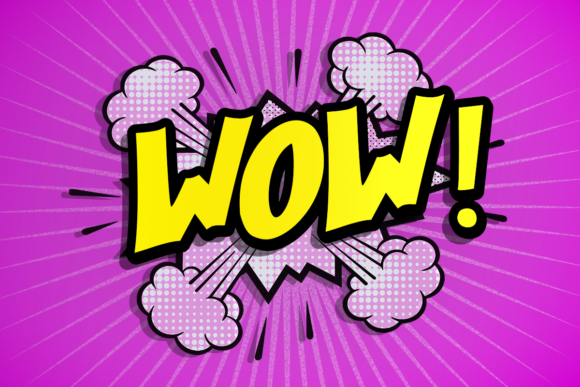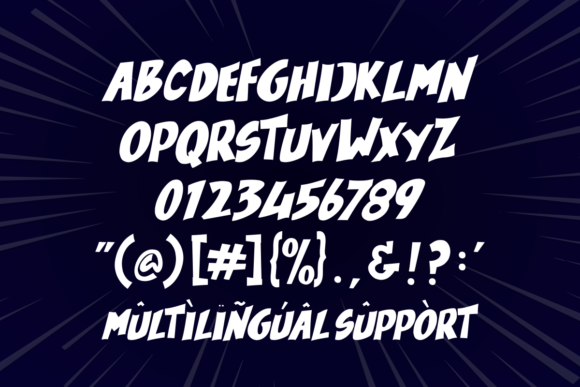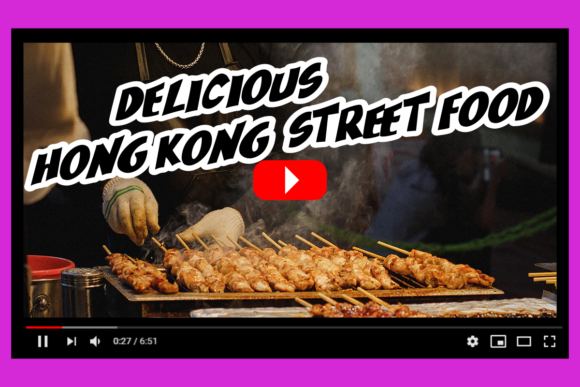
Houston Comics is a cute and fun display font.
It embodies playfulness and authenticity and is the perfect choice for any children activity or school project Add this chunky lettered font to your designs and notice how it makes them come alive.
Houston Comics Font offers exceptional quality and versatility, making it a valuable addition to your design toolkit. Whether you’re creating for personal projects or commercial use, Houston Comics Font delivers professional results.